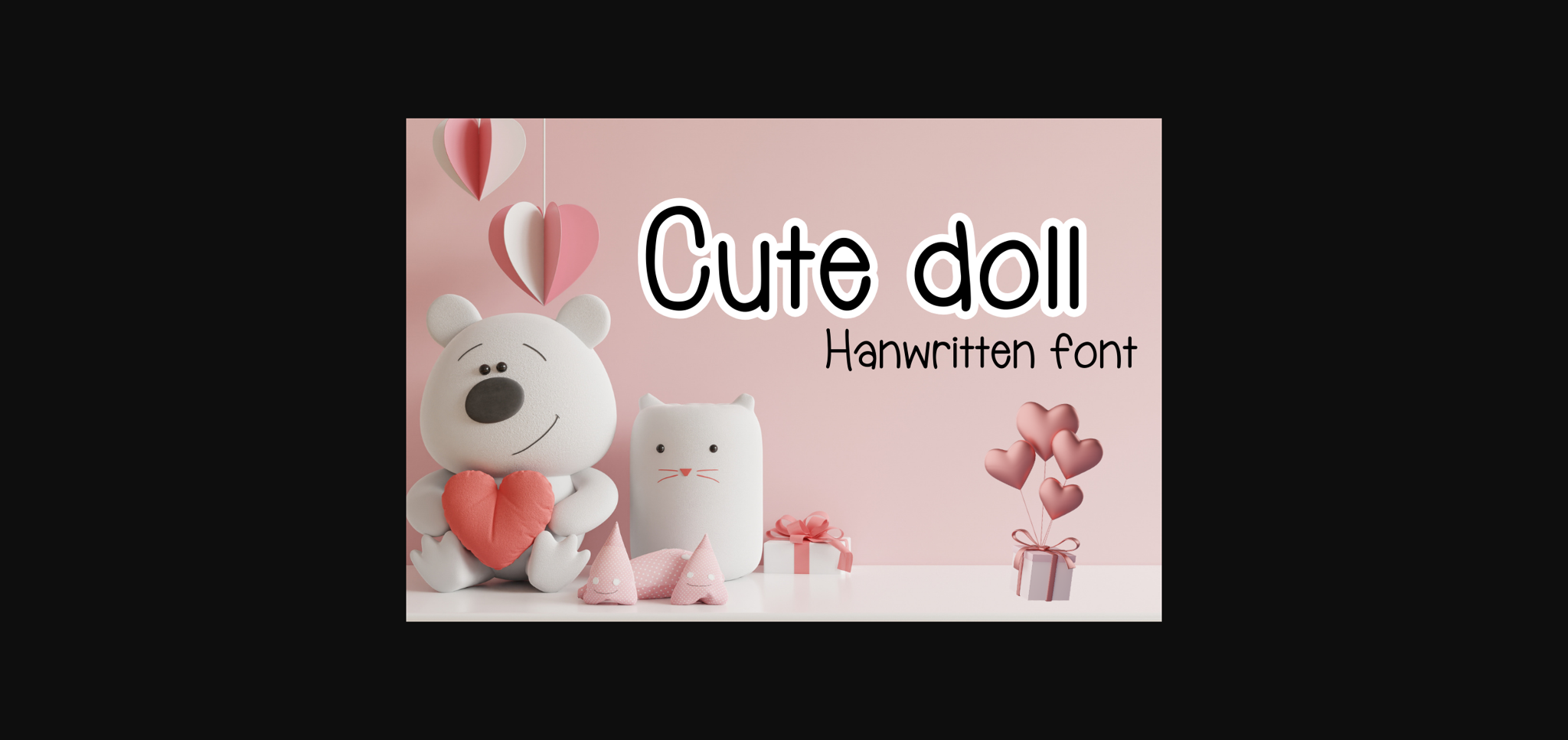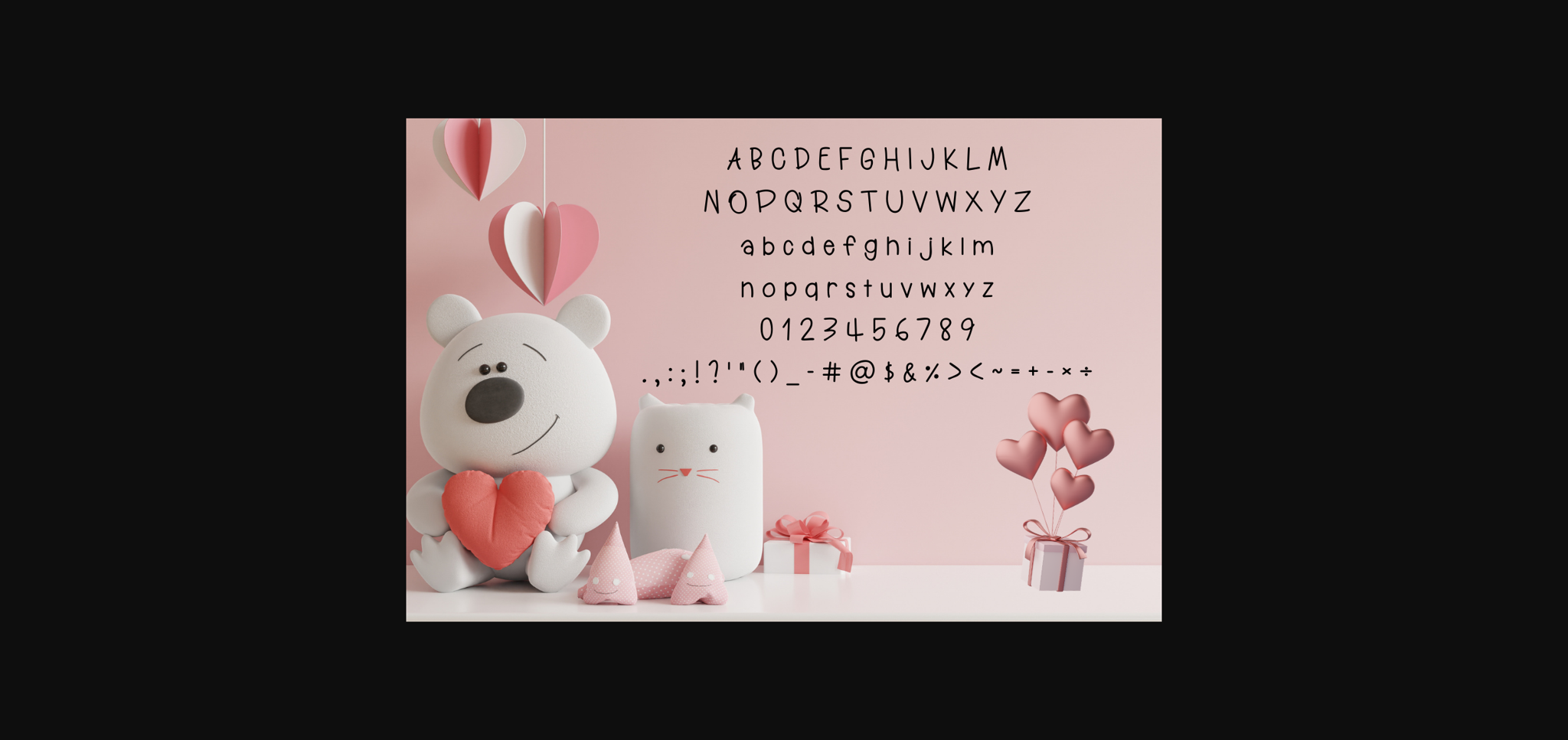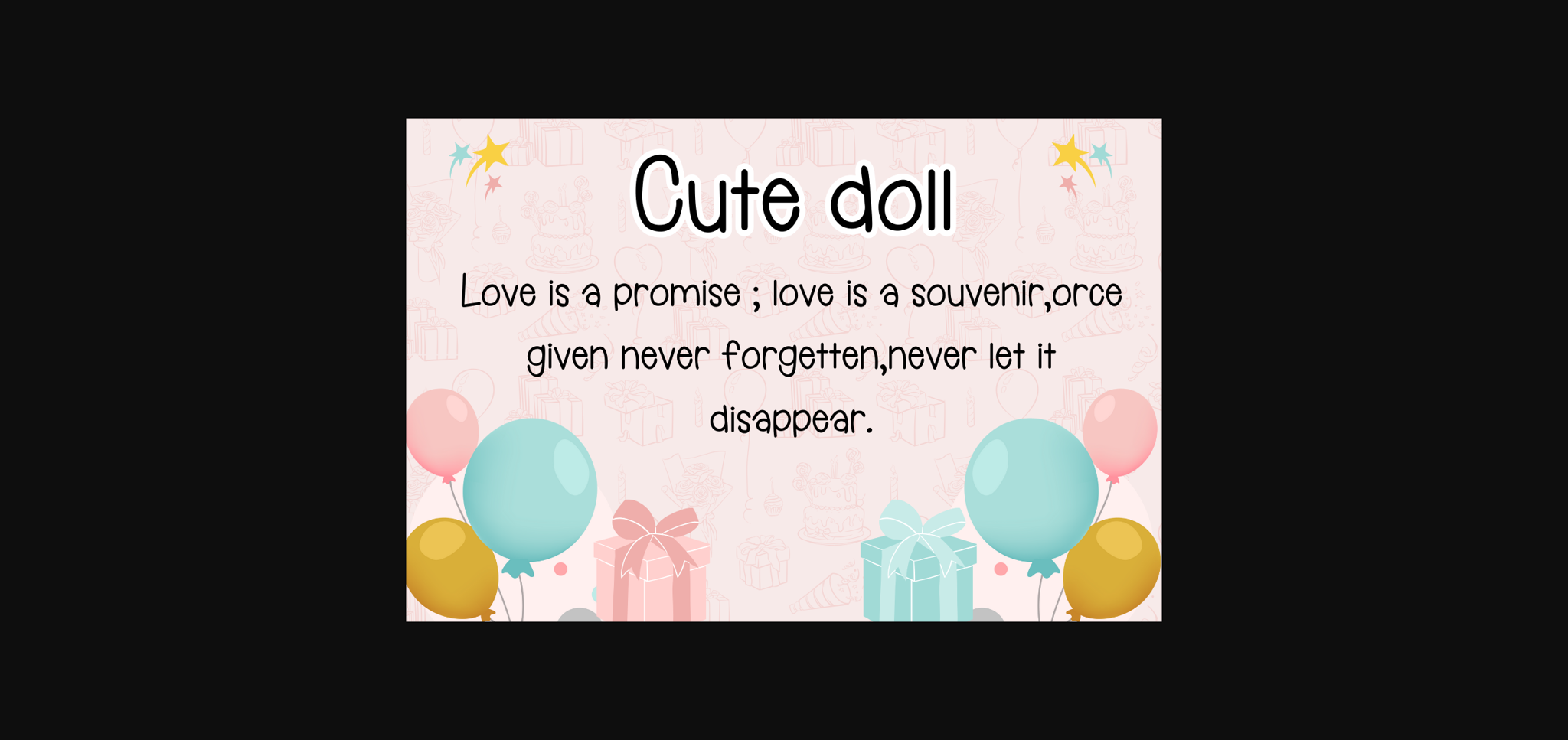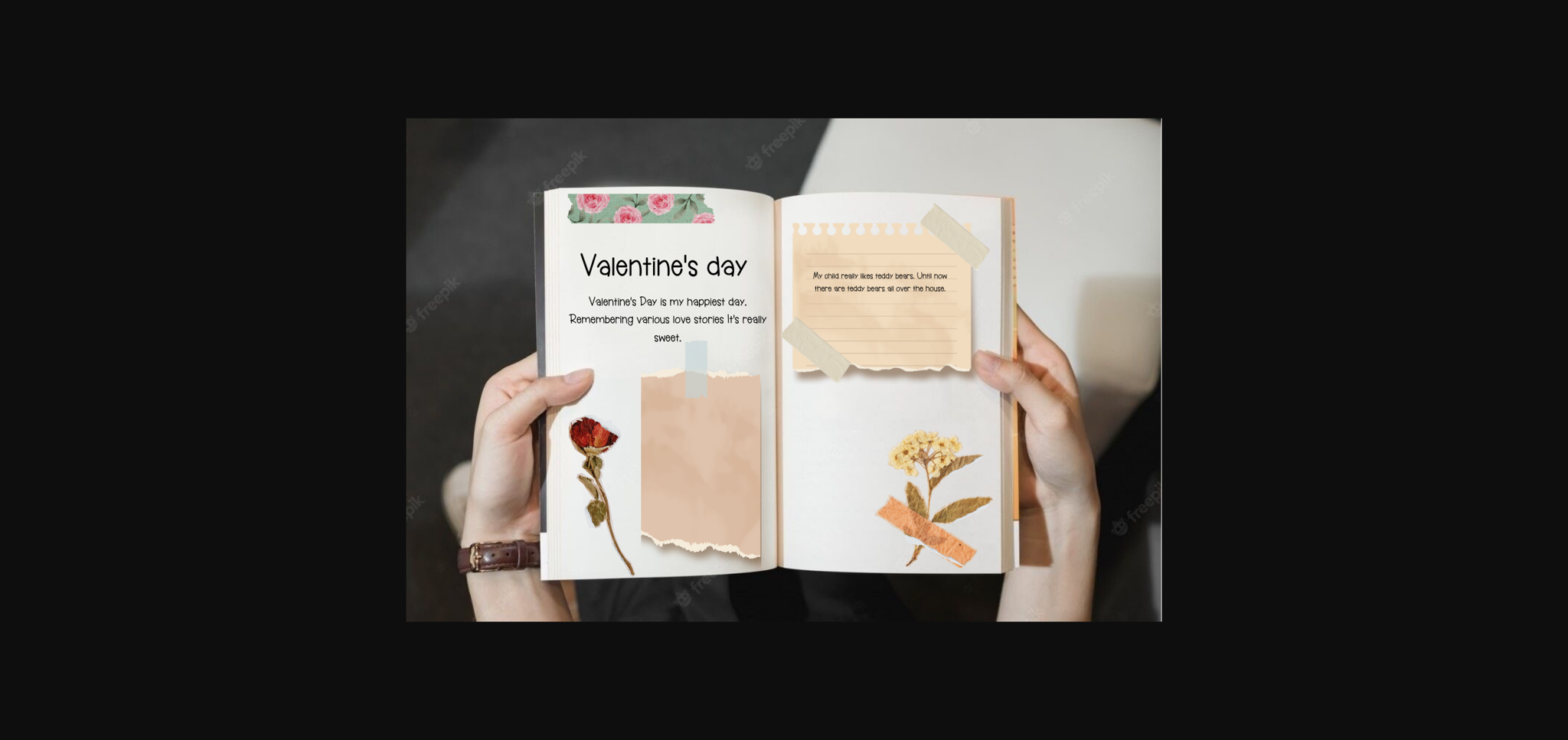
About Cute Doll Font
Cute Doll is a handwritten font. You can use it for taking notes, writing a diary, or making greeting cards. However, you can still use it for other designs such as banner content, mugs, cards, shirts, stationery, social media posts, and more!